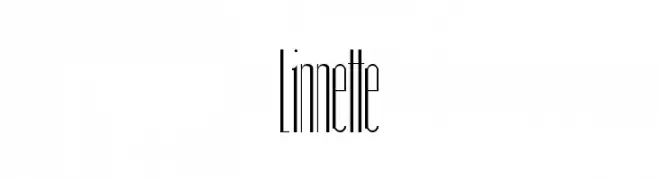
( Ryan Williamson )
An ultra-thin, modern font with elegant, clean lines.
( So-ghislaine - Ghislaine - www.so-ghislaine.deviantart.com )
A sleek, ultra-thin, and elongated font with consistent stroke width.
( Studio Dot by dot - Sjoerd Kulsdom - www.dotbydot.nl/fonts )
A modern, ultra-lightweight font with a minimalistic and geometric design.
( Studio Typo - www.studiotypo.com )
A modern, ultra-thin, elongated font with a sleek and elegant style.
( Typodermic Fonts - Ray Larabie - www.typodermicfonts.com/ )
An ultra-condensed, elongated font with thin strokes and a modern aesthetic.
( Typodermic Fonts - Ray Larabie - www.typodermicfonts.com/ )
A modern, ultra-lightweight font with sleek, geometric lines and a minimalistic style.
( estoeslomio - Mar Hermida - www.estoeslomio.com )
A tall, ultra-condensed font with thin strokes and a modern aesthetic.
( Daniel Plant - www.fontmonster.org )
A modern, ultra-thin unicase font with elongated, elegant characters.
( Joiro Hatagaya )
A modern, ultra-condensed font with elongated vertical lines and narrow spacing.
A modern, ultra-light, condensed sans-serif font with a sleek and minimalistic design.